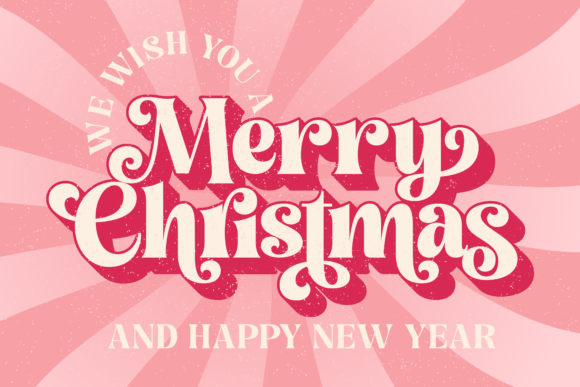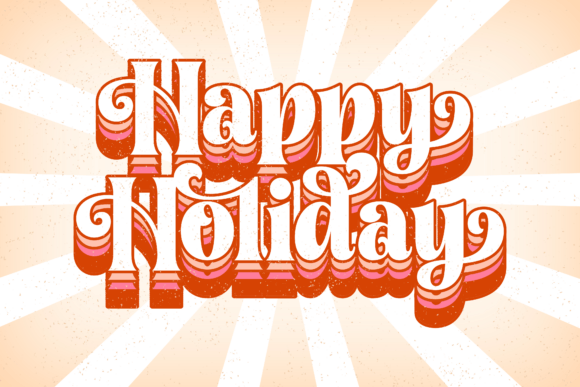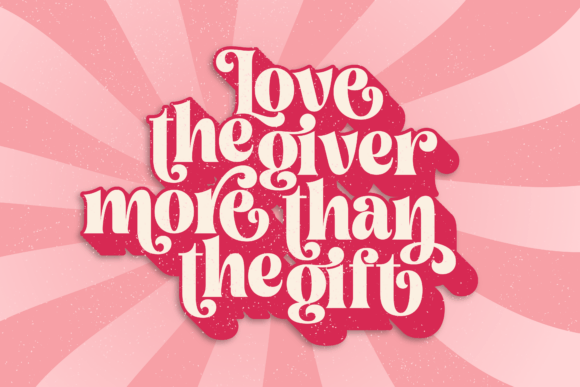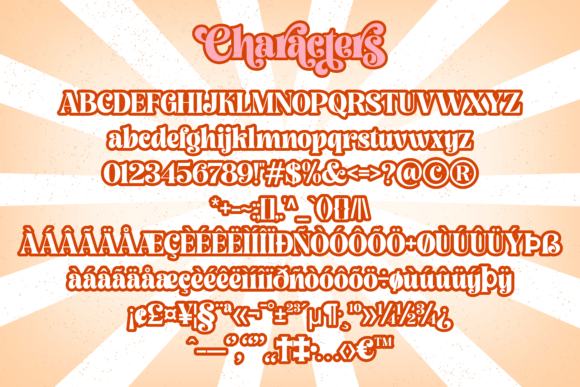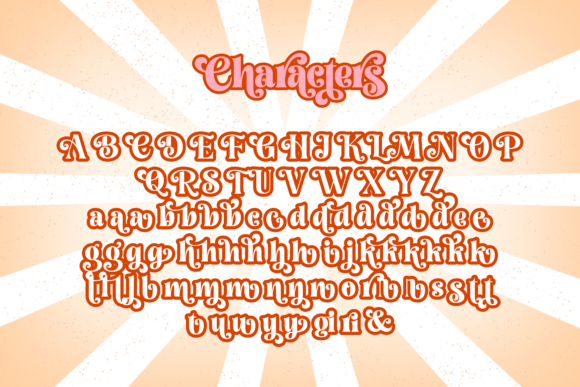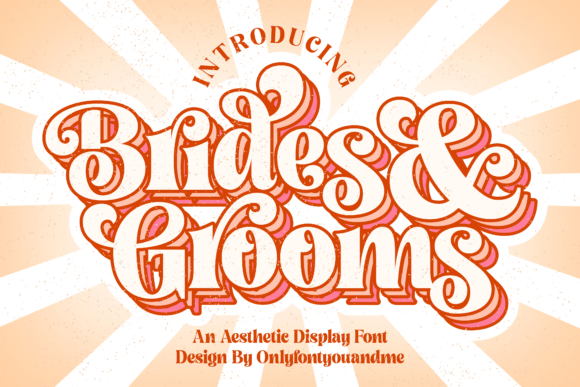
Introducing Brides and Grooms Font: The Ultimate Elegance for Wedding-Themed Projects
Are you a designer or crafter looking for the perfect font to add a touch of elegance and sophistication to your wedding-themed projects? Look no further than the Brides and Grooms Font, a stunning decorative script style that exudes vintage charm and celebratory flair. In this article, we’ll dive into the unique features of this beautiful font and explore its endless possibilities for wedding invitations, decorative headlines, and more.
A Vintage-Inspired Script Style
Brides and Grooms Font is a decorative, vintage-inspired script style that boasts ornate swirls and loops, creating an elegant and celebratory feel. Its bold 3D layered shadow effect adds depth and dimension to the design, making it perfect for eye-catching headlines and titles. The font’s rounded edges and hand-lettered appearance enhance its charm, giving it a warm and inviting feel that’s sure to captivate your audience.
Warm Pastel Color Palette and Textured Background
One of the standout features of Brides and Grooms Font is its warm pastel color palette, which further emphasizes its retro aesthetic. The soft, delicate hues evoke a sense of nostalgia and romance, making it ideal for wedding-themed projects. The textured background adds a tactile feel to the design, giving it a sense of authenticity and character. Whether you’re creating wedding invitations, save-the-date cards, or decorative signs, this font is sure to bring a touch of vintage elegance to your designs.
Perfect for Wedding-Themed Projects
Brides and Grooms Font is specifically designed with wedding-themed projects in mind. Its elegant script style and ornate details make it perfect for:
- Wedding invitations and save-the-date cards
- Decorative headlines and titles
- Wedding signs and banners
- Stationery and gift tags
- Social media graphics and wedding announcements
Why Choose Brides and Grooms Font?
So why choose Brides and Grooms Font for your wedding-themed projects? Here are just a few reasons:
- Unique and eye-catching design: The font’s bold 3D layered shadow effect and ornate swirls and loops make it a standout choice for wedding-themed projects.
- Vintage-inspired aesthetic: The font’s warm pastel color palette and textured background evoke a sense of nostalgia and romance.
- Elegant and celebratory feel: The font’s script style and ornate details create an elegant and celebratory feel that’s perfect for wedding-themed projects.
- Versatile and adaptable: The font can be used for a variety of wedding-themed projects, from invitations and signs to social media graphics and stationery.
Tips for Using Brides and Grooms Font
Here are a few tips for using Brides and Grooms Font in your wedding-themed projects:
- Pair with complementary fonts: Pair Brides and Grooms Font with complementary fonts, such as serif or sans-serif fonts, to create a visually appealing contrast.
- Experiment with colors: Experiment with different colors and textures to find the perfect combination for your wedding-themed project.
- Use for headlines and titles: Use Brides and Grooms Font for headlines and titles to add a touch of elegance and sophistication to your design.
Brides and Grooms Font is a stunning decorative script style that’s perfect for wedding-themed projects. Its unique and eye-catching design, vintage-inspired aesthetic, and elegant and celebratory feel make it a standout choice for designers and crafters. With its versatility and adaptability, this font is sure to become a go-to choice for wedding invitations, decorative headlines, and more. So why wait? Download Brides and Grooms Font today and add a touch of elegance and sophistication to your wedding-themed projects!